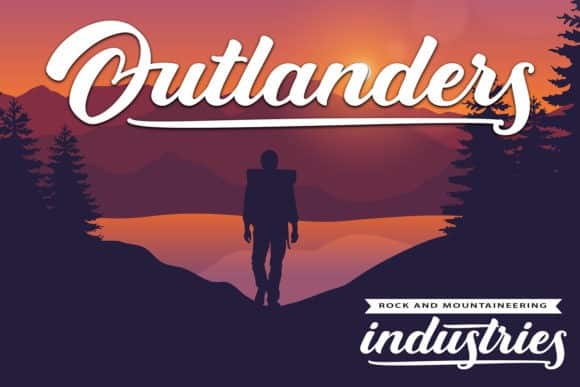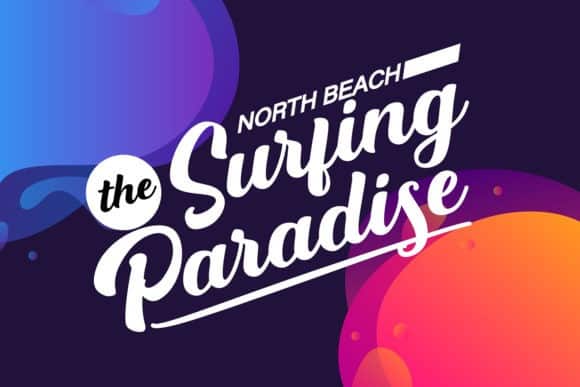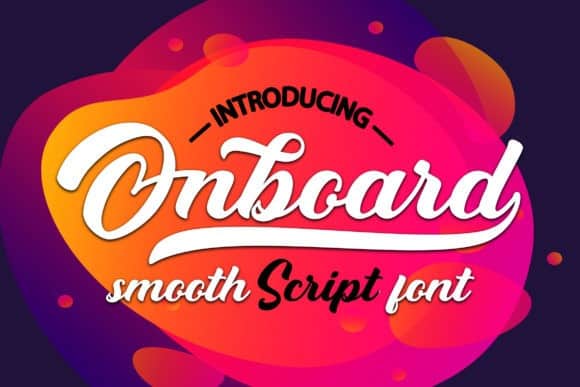
Onboard Script Font
Creative freehand or casual script font for your new artworks. Onboard Script Font is a smooth script font that works beautifully with many design projects. This typeface is designed and shared by Vunira. Fall in love with its playful look & feel! With lot of alternate characters and swash font so you can create amazing headers or titles. Enjoy and let me know anytime.